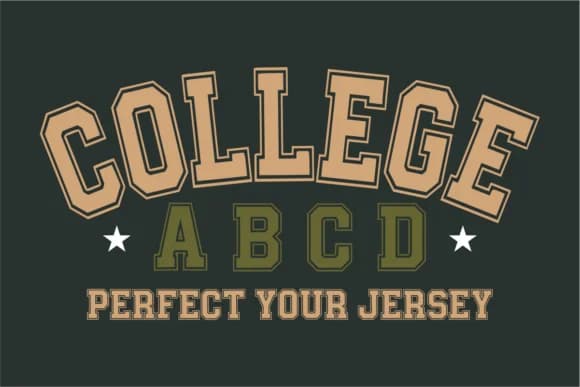
Football Jersey by anamalmusyaffaCreative is a bold slab-serif display typeface that brings serious presence to anything it touches. Built exclusively in all-caps, this typeface creates an immediate sense of power and authority that commands attention. Each letter sits heavy and confident on the page, with chunky proportions and deliberately distressed edges that give it an authentic grunge character. The typeface refuses to be understated; it's built for impact and recognition.
Practically speaking, this typeface shines where rugged authenticity matters most. Sports team branding benefits from its confident stance, and custom athletic wear labels, championship merchandise design, and vintage-inspired gym poster artwork all come alive with this typeface's weathered aesthetic. The distressed detailing creates genuine character that reads as handcrafted rather than generic, which is exactly what you need when designing sublimated sportswear graphics or workout apparel branding. That grunge quality also works beautifully for team logo custom lettering and retro sports merchandise designs where you want that well-worn, lived-in look that suggests history and toughness.
- Sturdy, Confident, Football Font
Football Jersey Font is a slab serif font that shines as a display or heading face. Pair it with a clean sans-serif or serif font for body text β the contrast creates a clear hierarchy while the two styles stay balanced and easy to read.